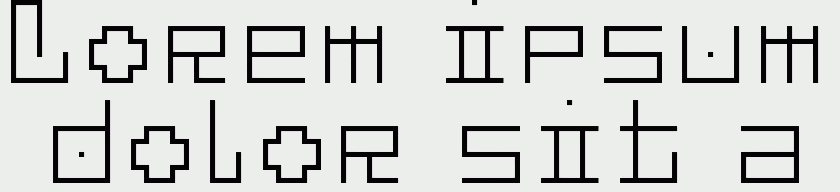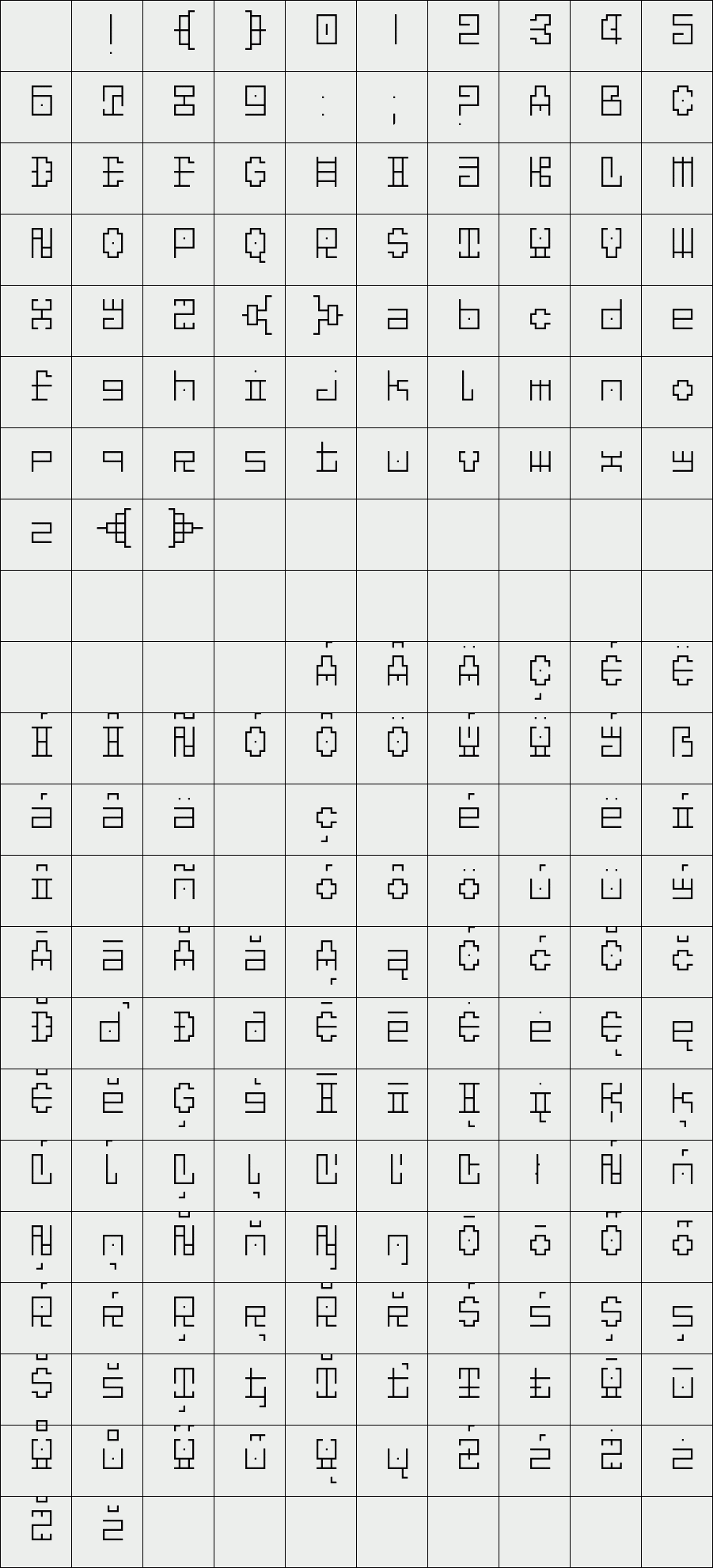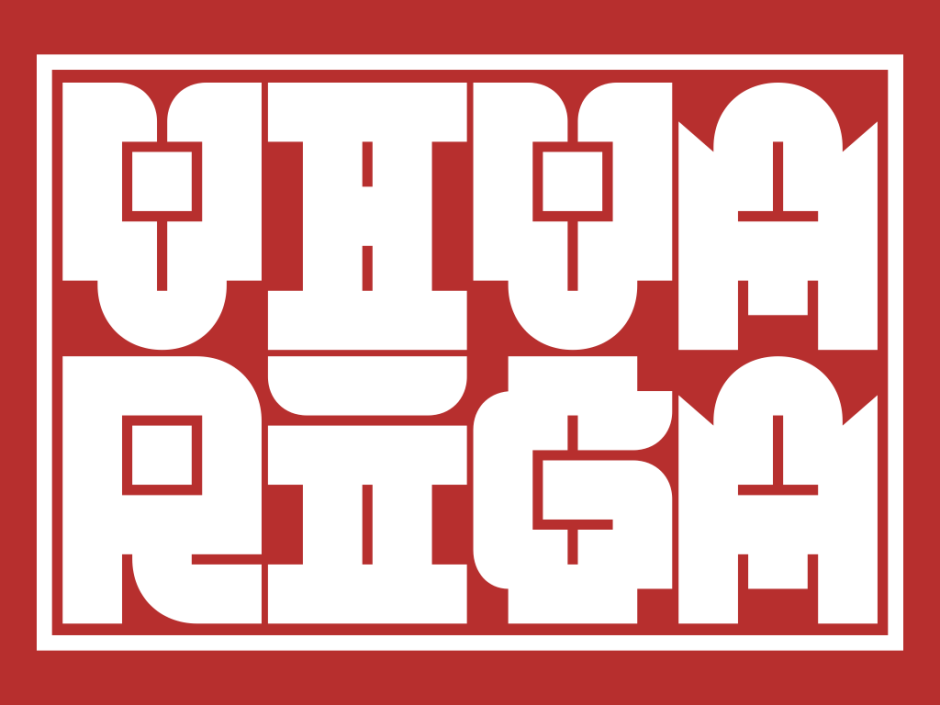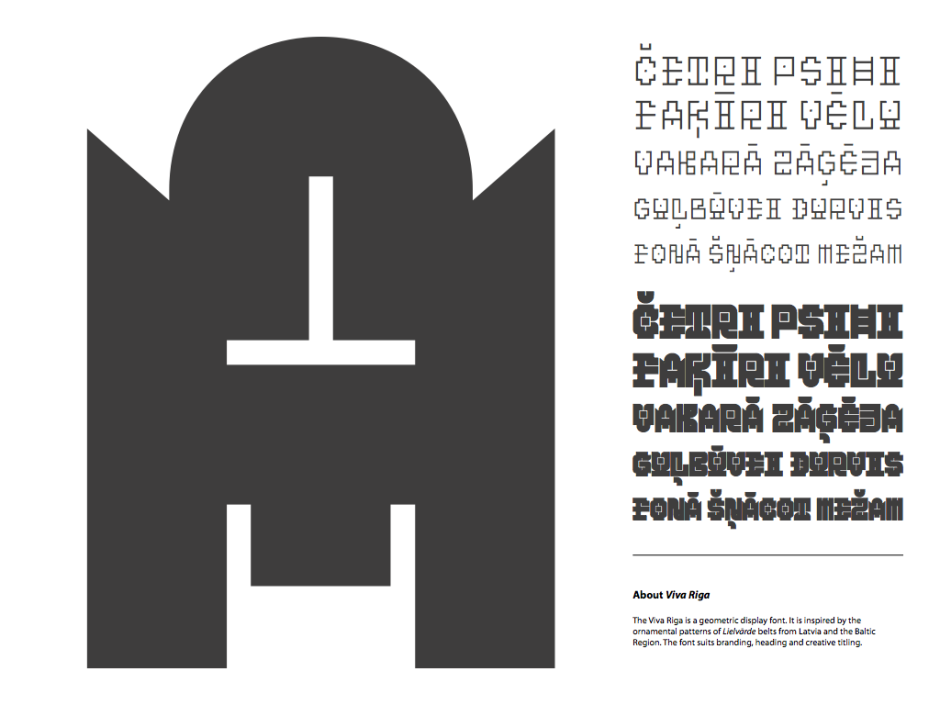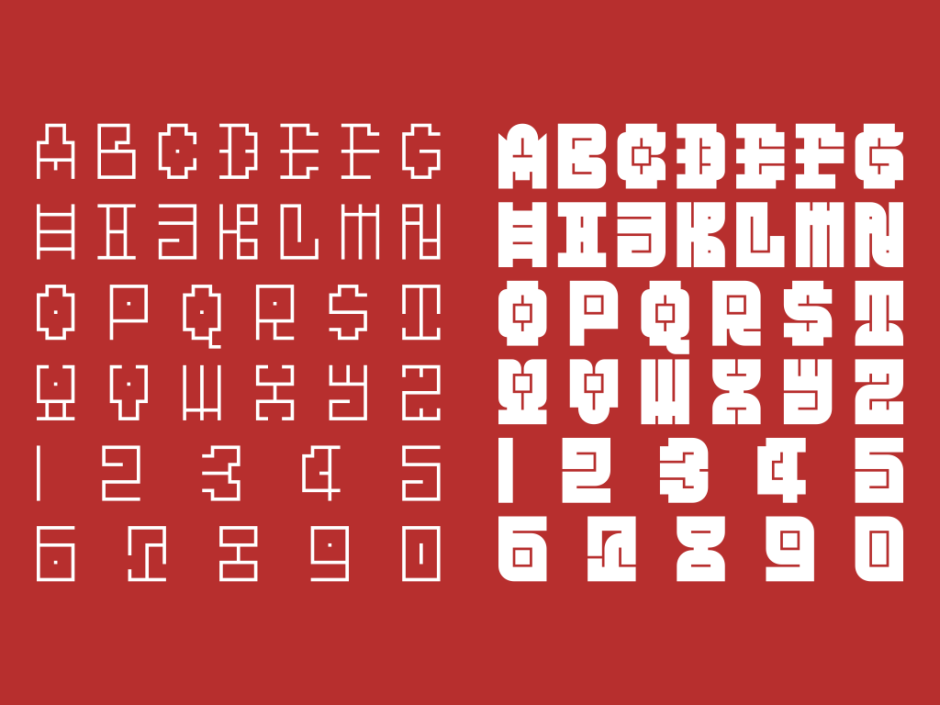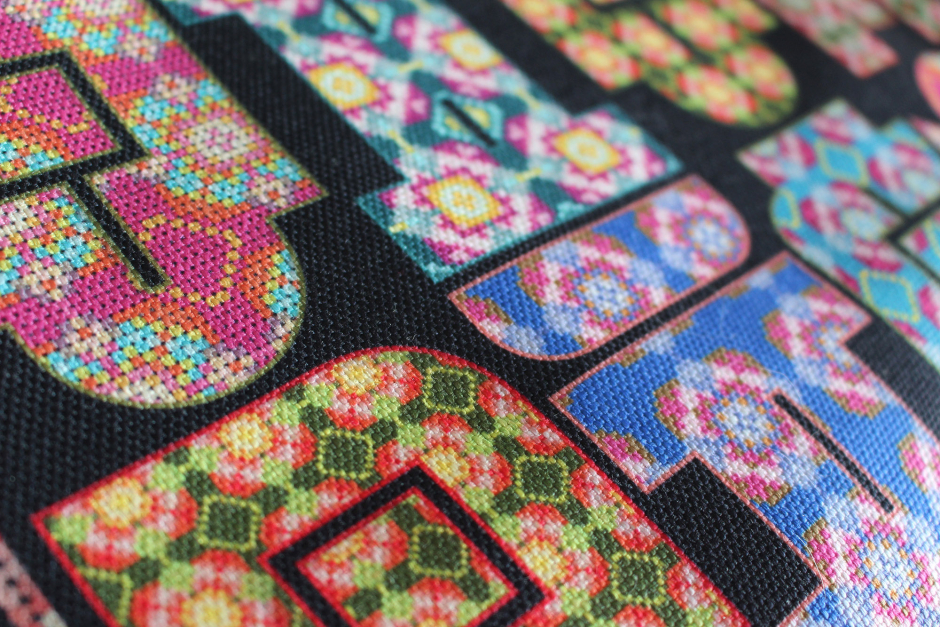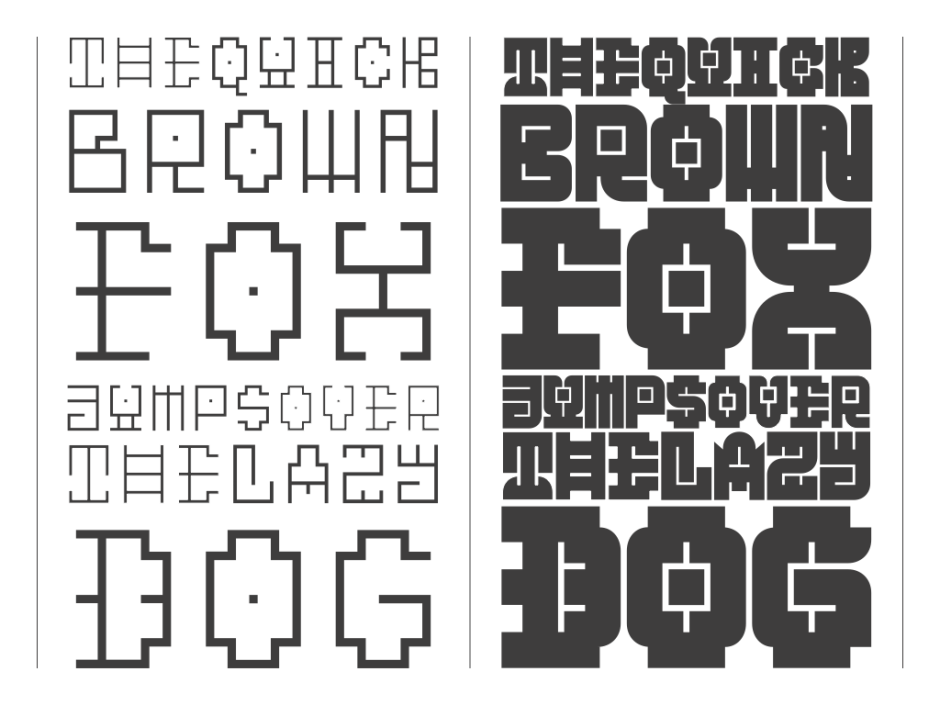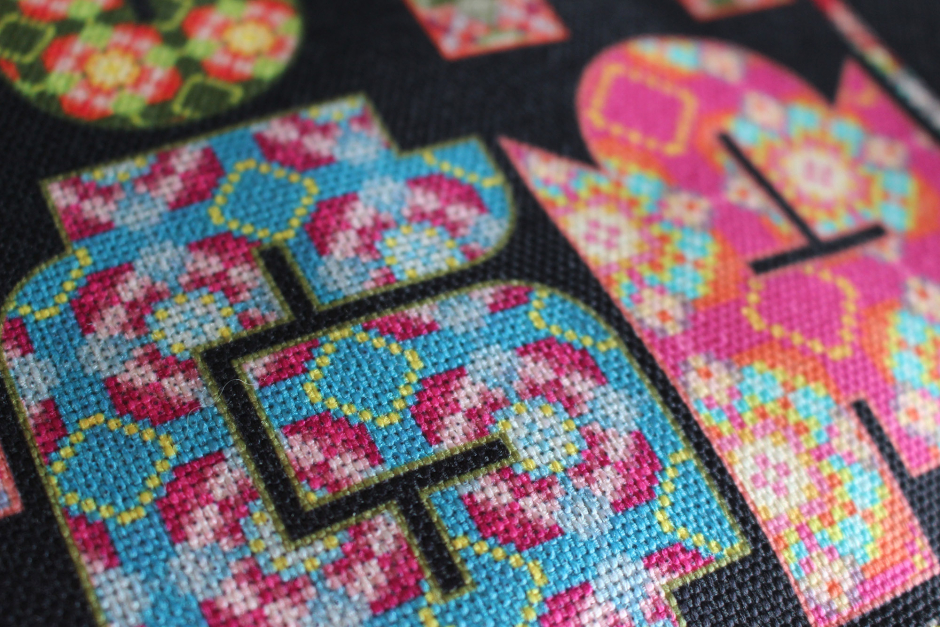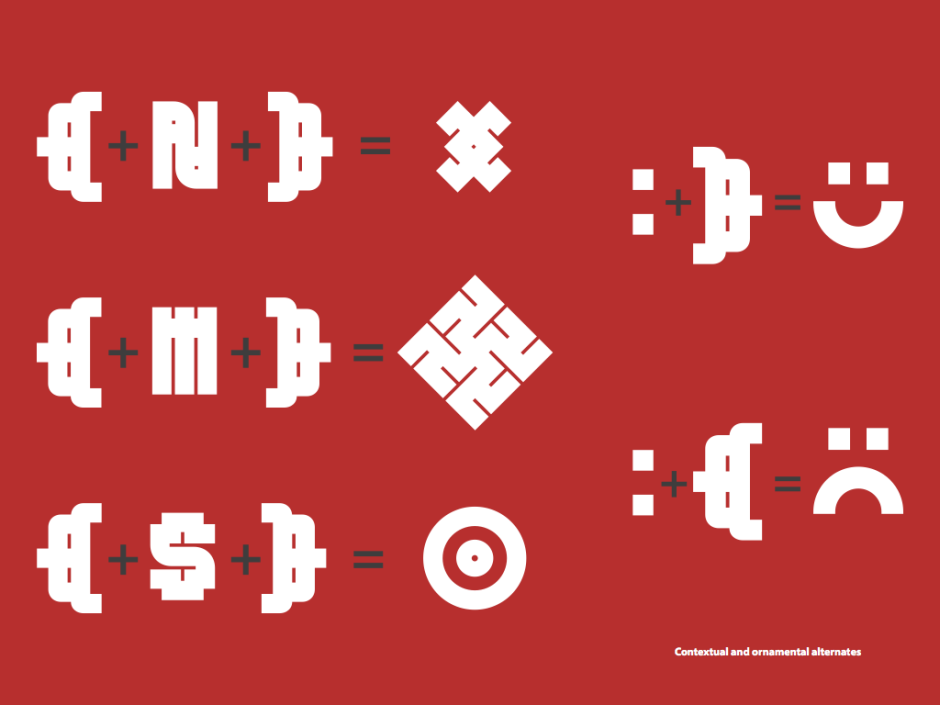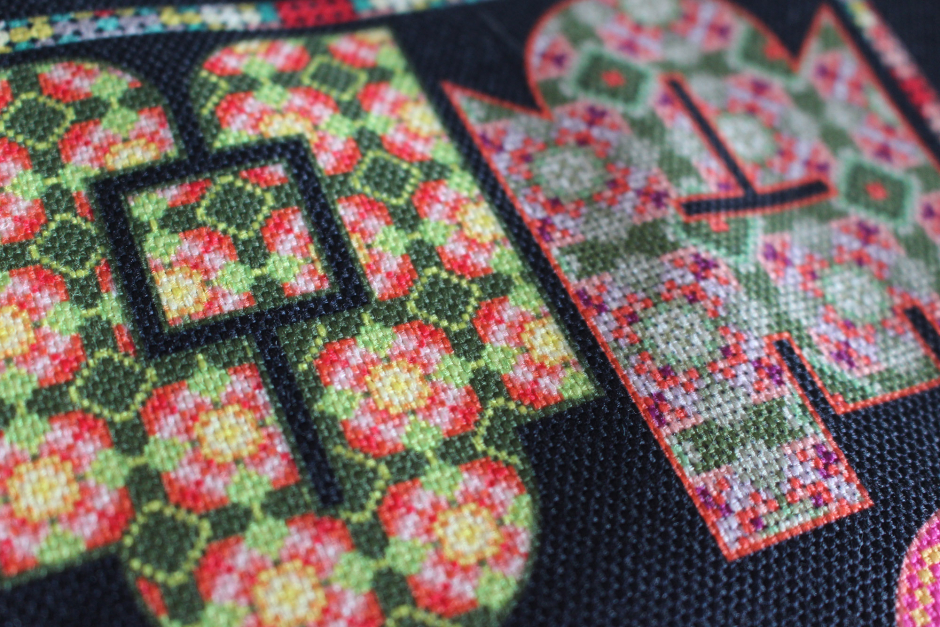
Viva Riga
The Viva Riga is a display font that is inspired by the ornamental patterns of Lielvārde belts from Latvia and the Baltic Region. The font suits branding and creative titling.